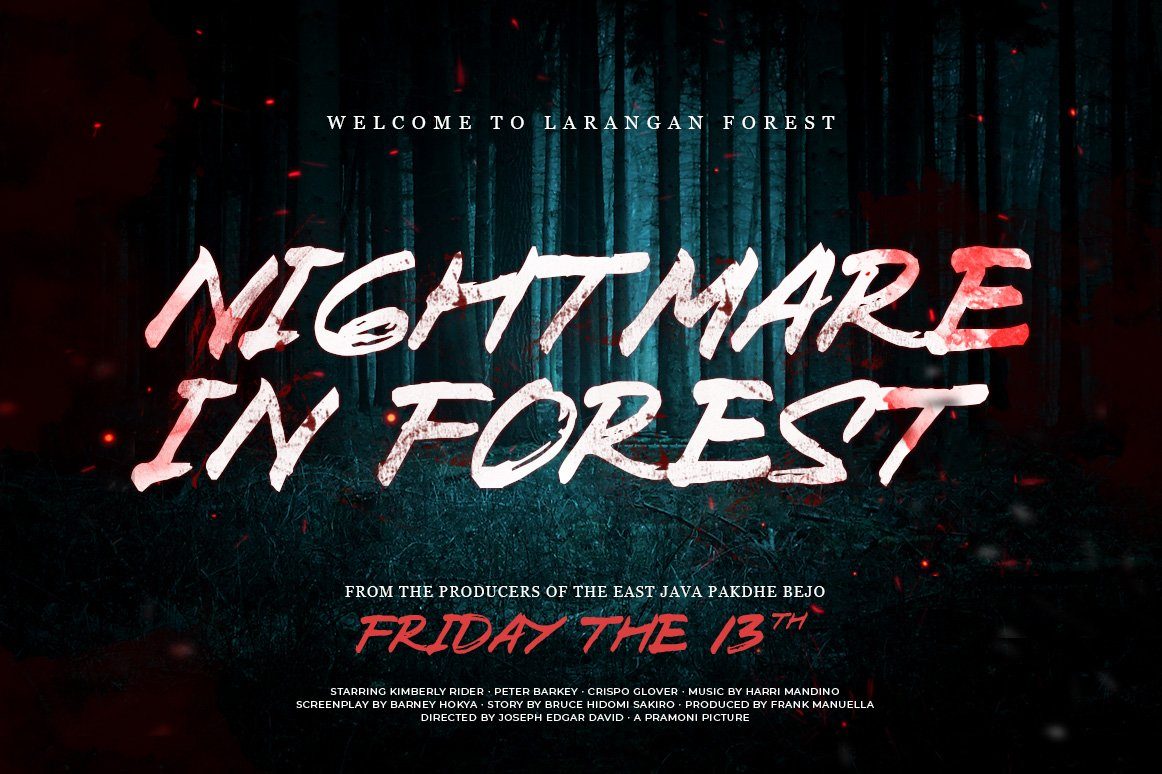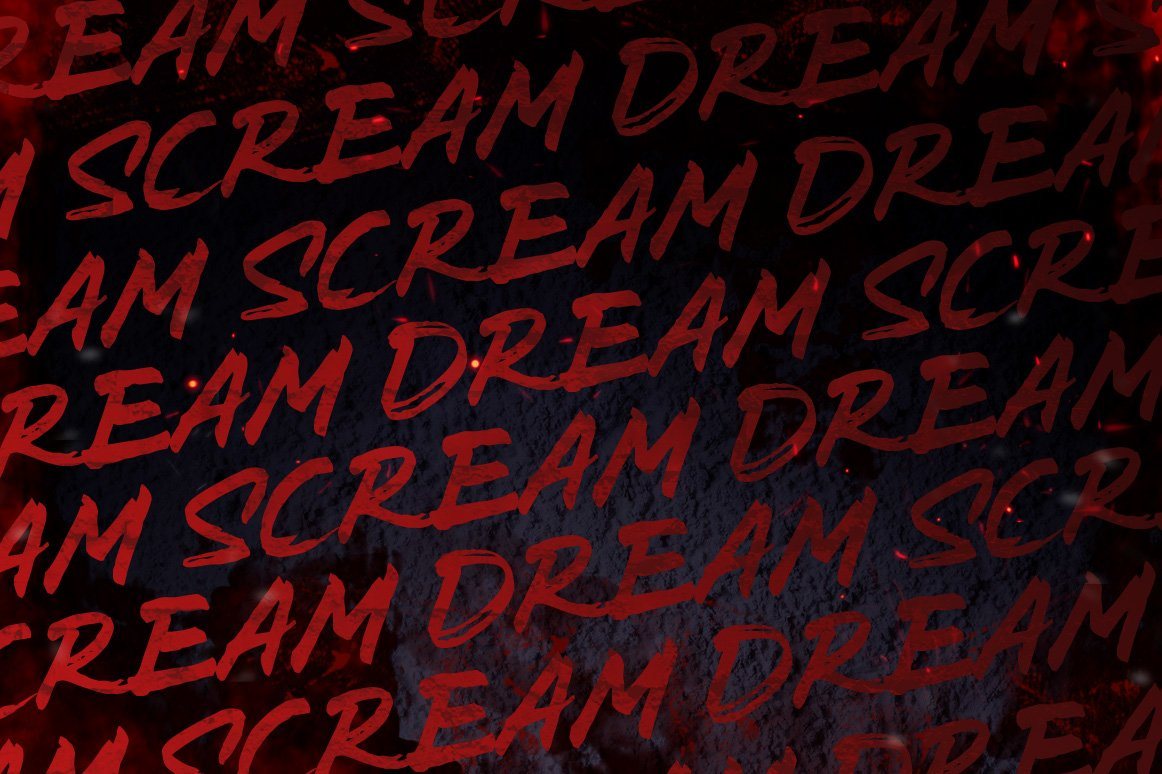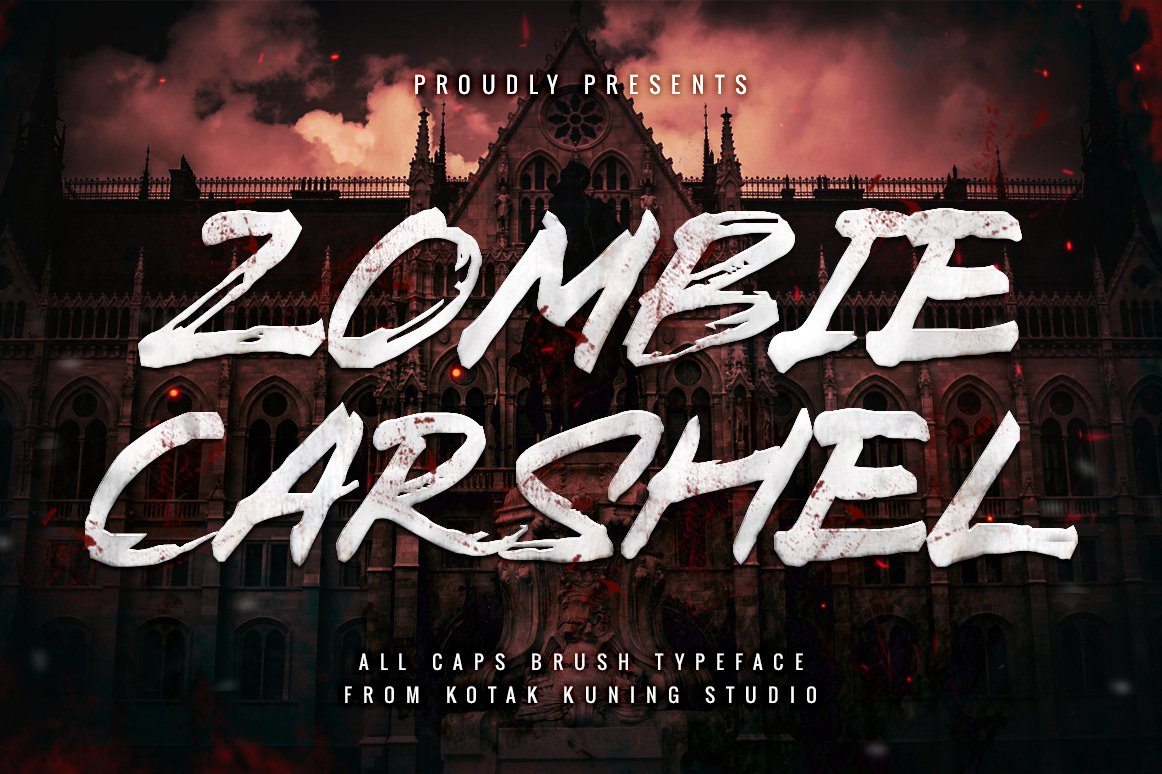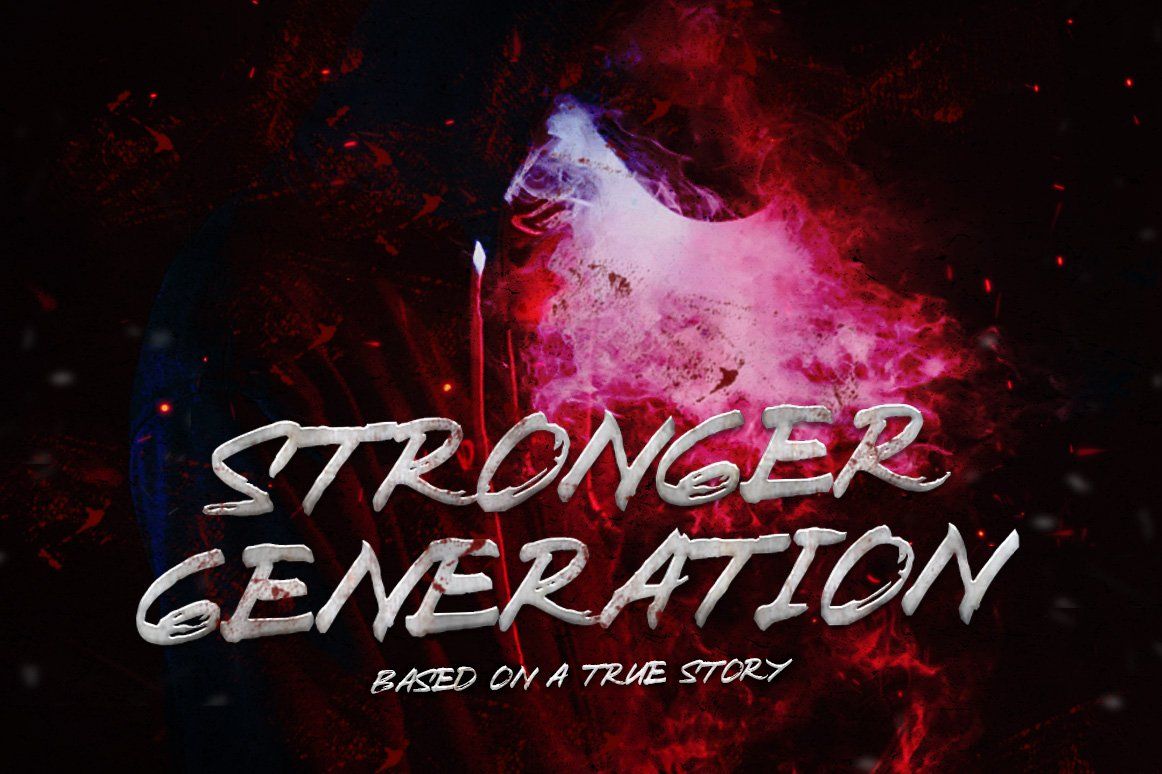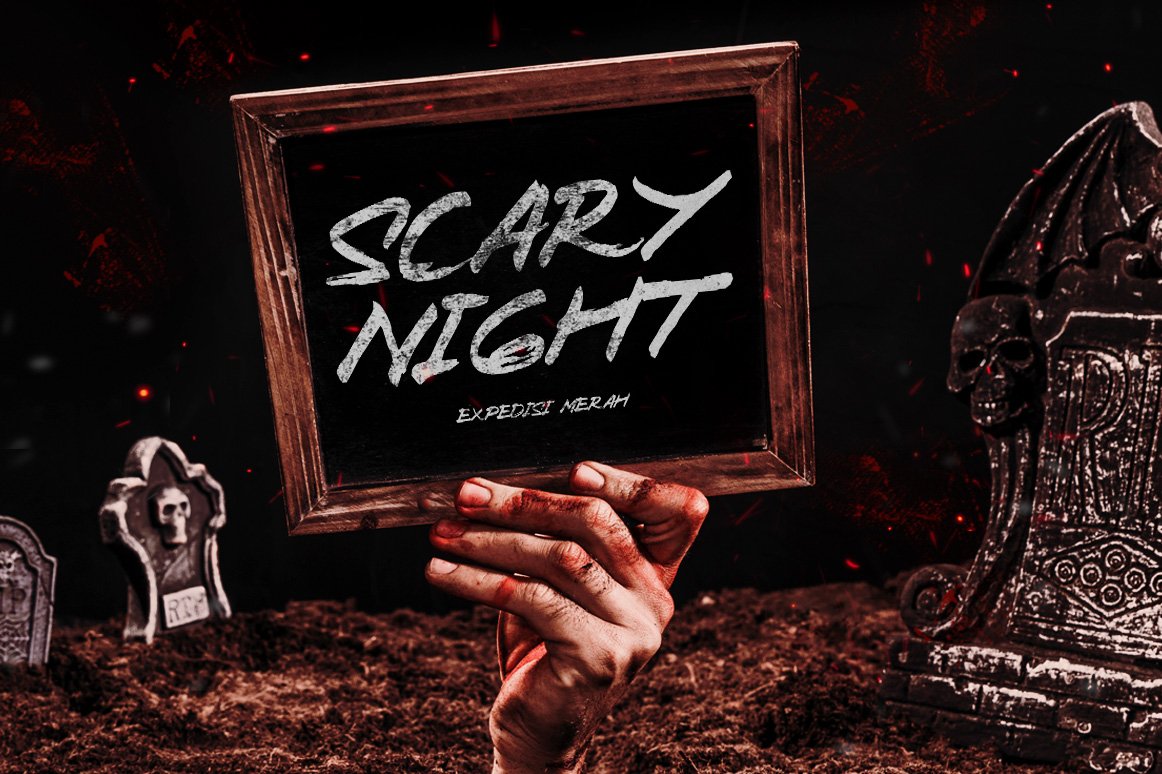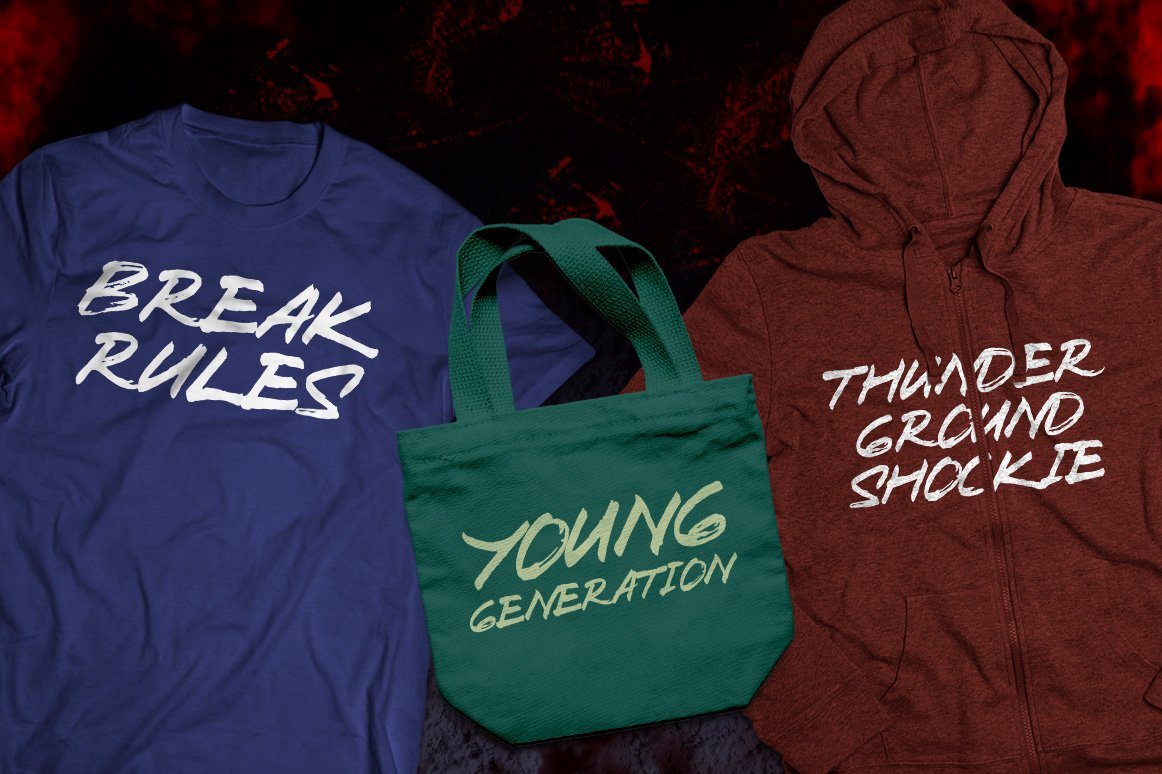
Zombie Carshel
About Zombie Carshel
All caps hand-drawn font that was created with a dry brush which gives the more personal touch and makes the font looks being customized. This font is suitable to use as a logotype, product designs, label, watermark, social media posts, apparel, invitation, signboard, sports club, motor/car, special events or anything that need handwriting taste. What you get: ZombieCarshel.ttf and ZombieCarshel.otf Zombie Carshel includes Alternates and Ligatures Character Numbers + punctuation I highly recommend using a program that supports OpenType features and Glyphs panels such as Adobe Illustrator, Adobe Photoshop CC, Adobe InDesign, or CorelDraw, so you can see and access all Glyph variations. We hope you enjoy the font. Thank You.